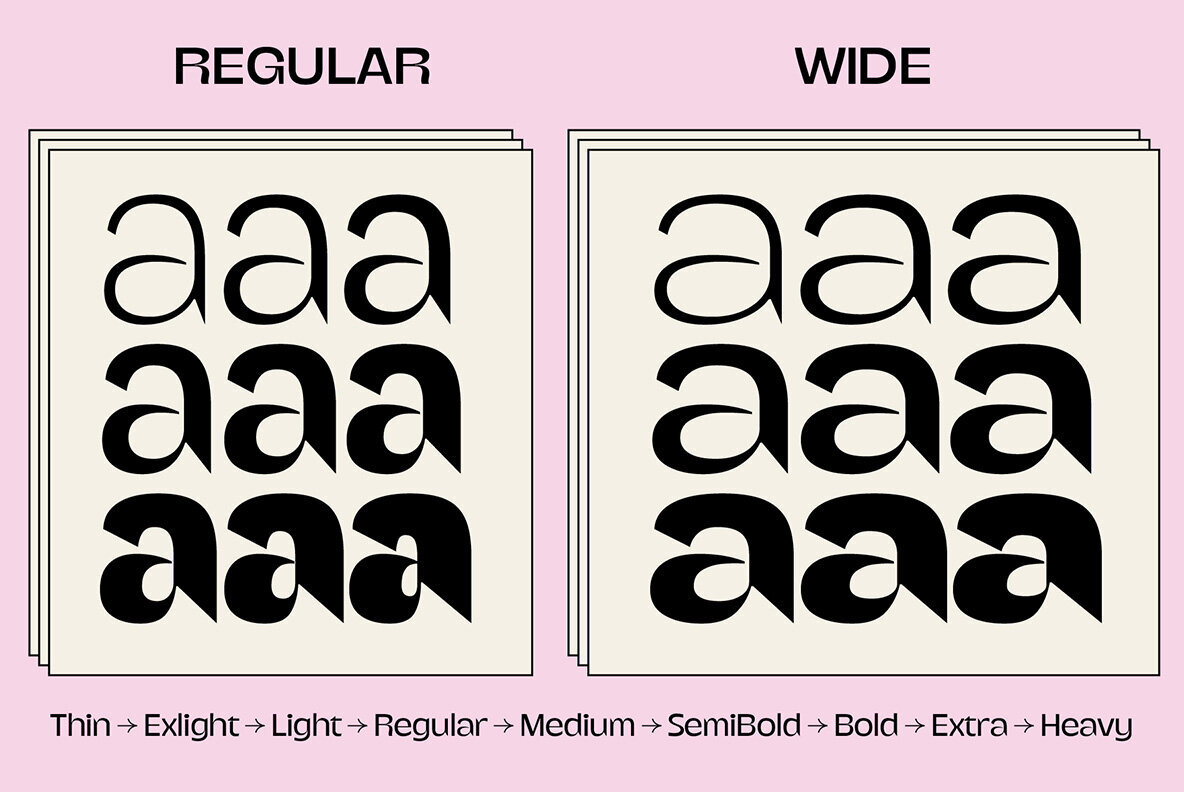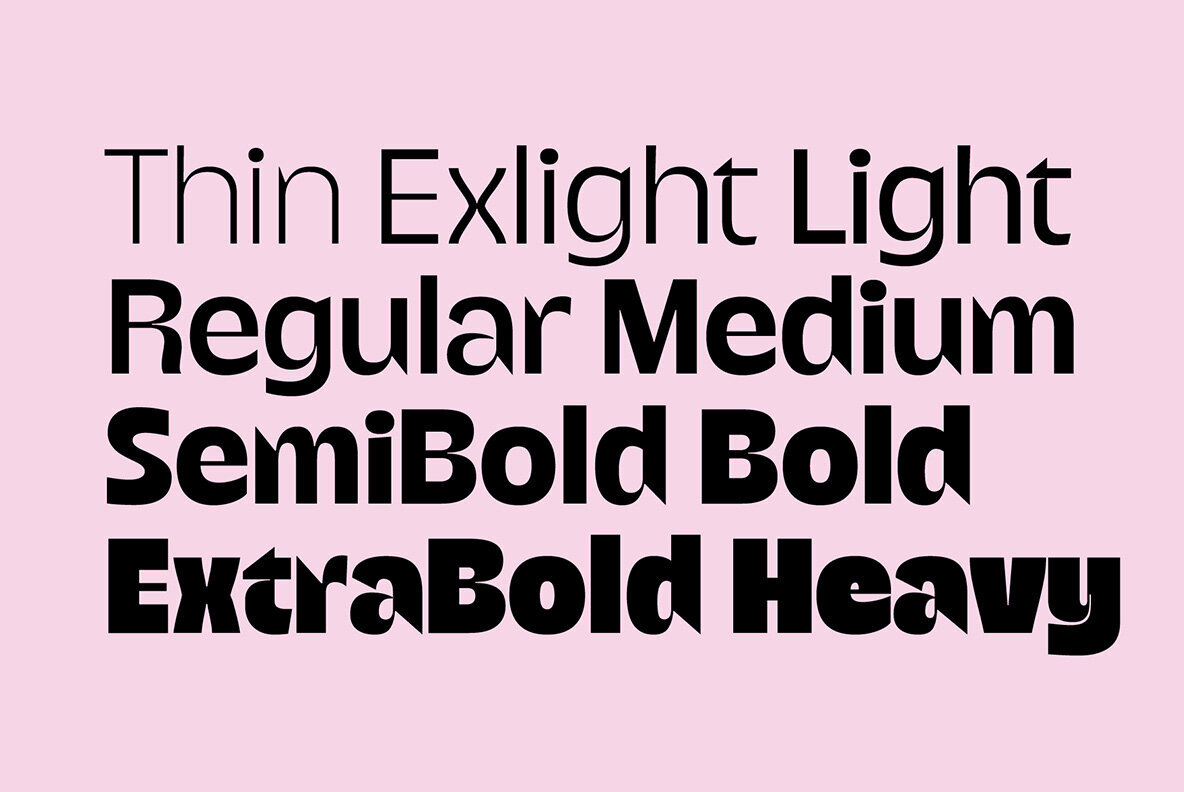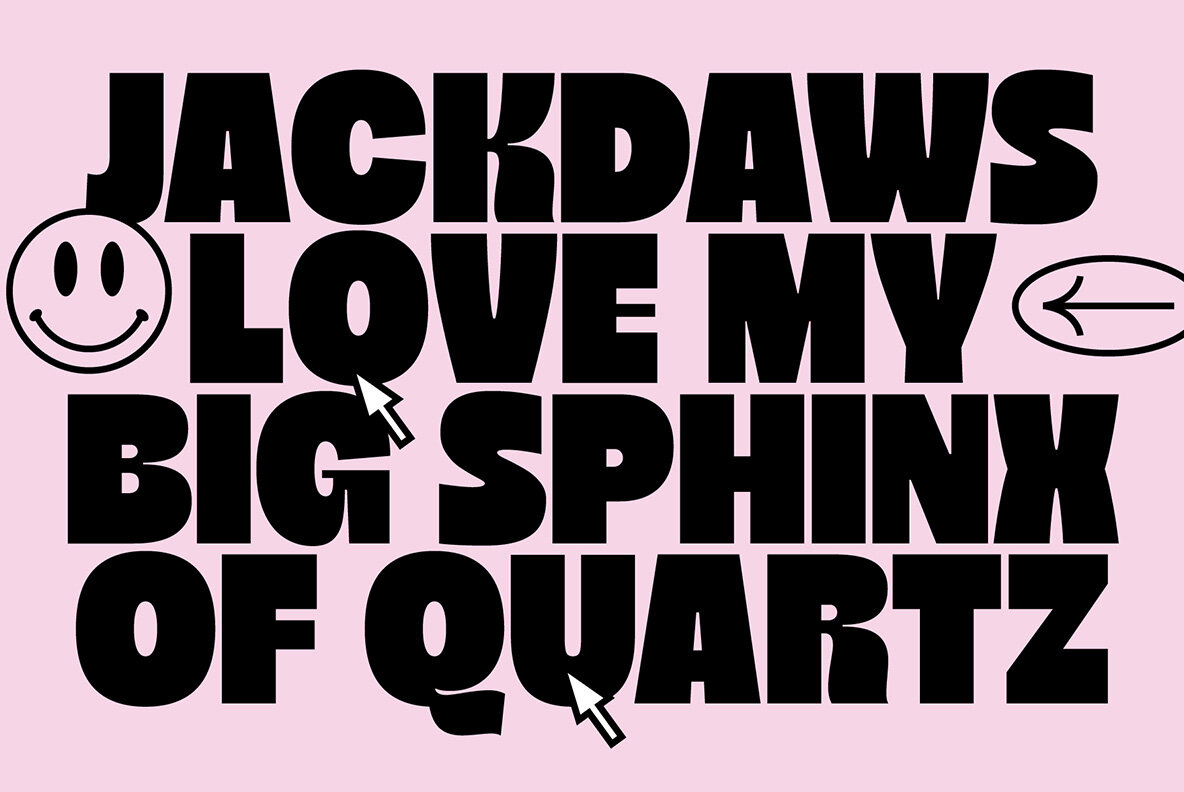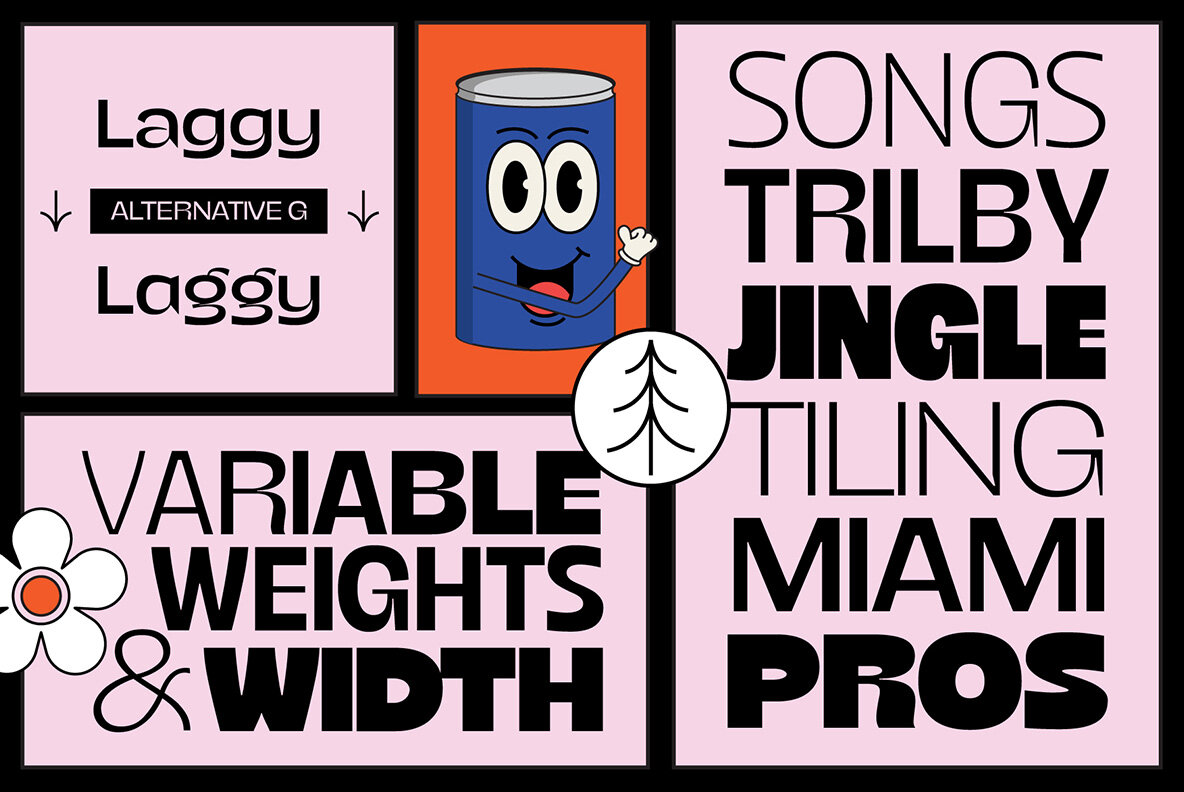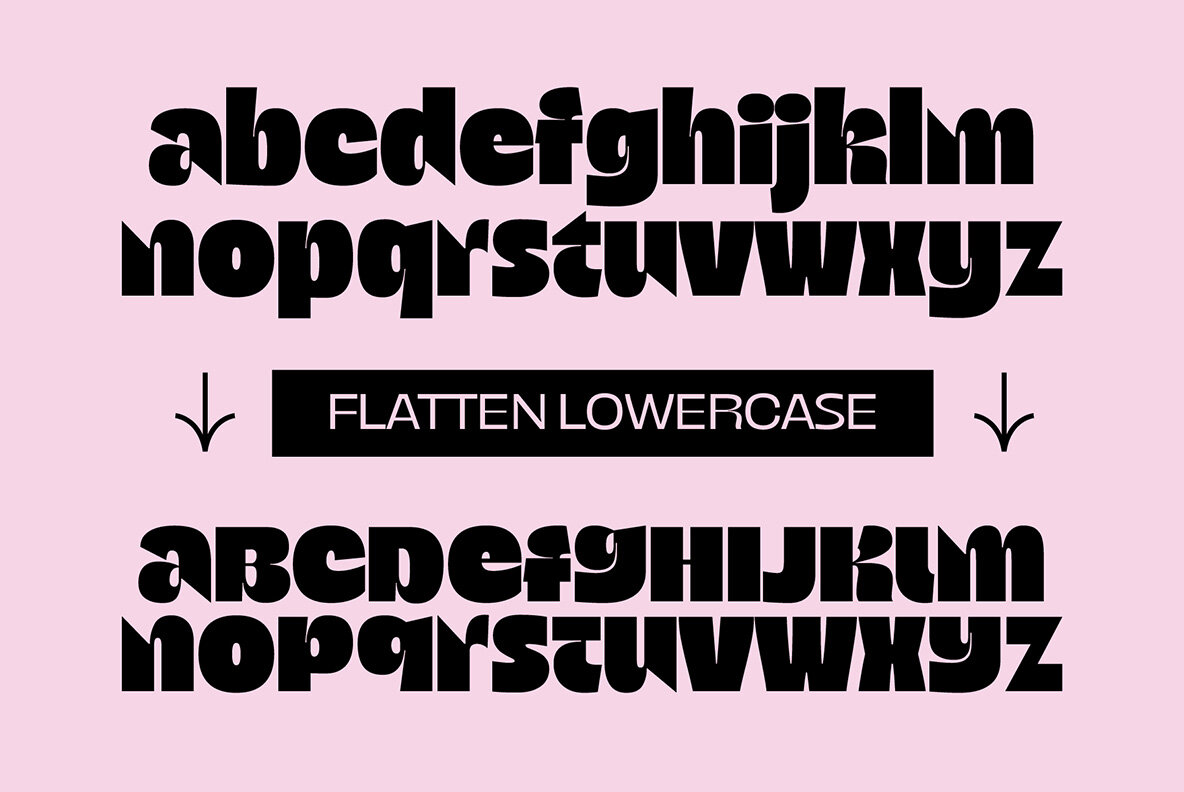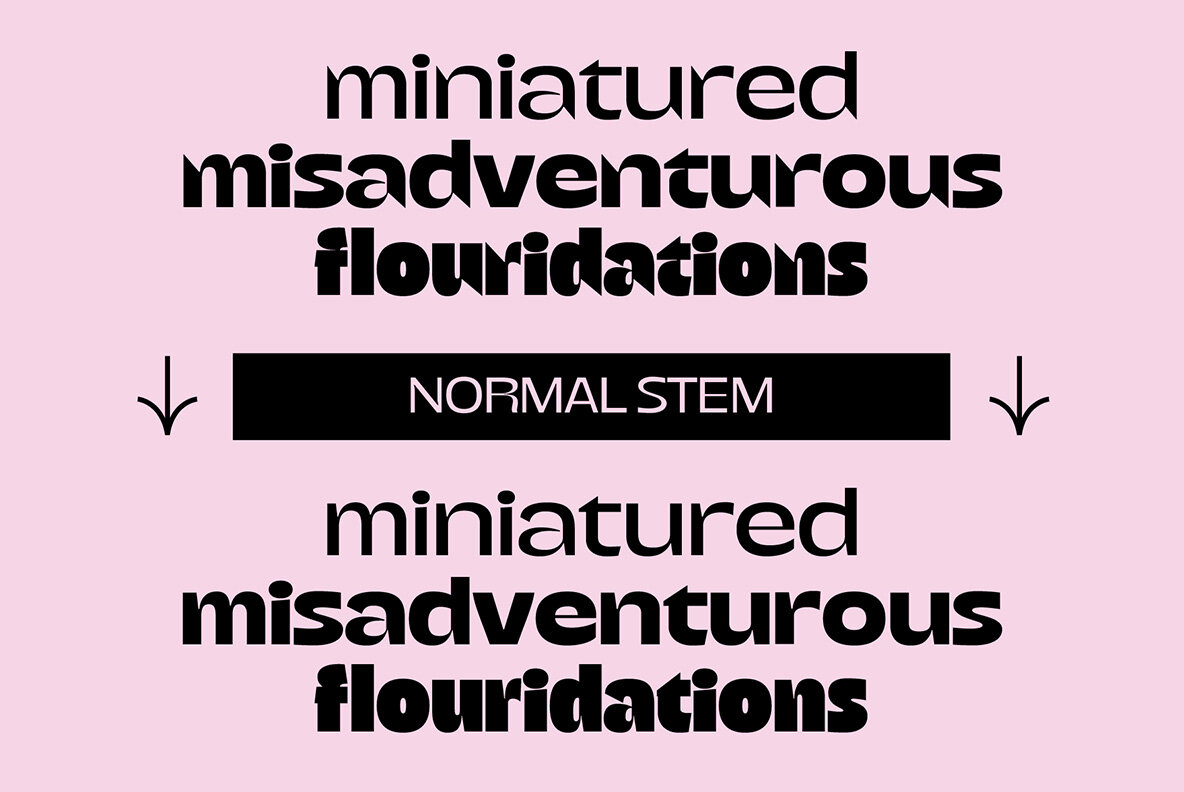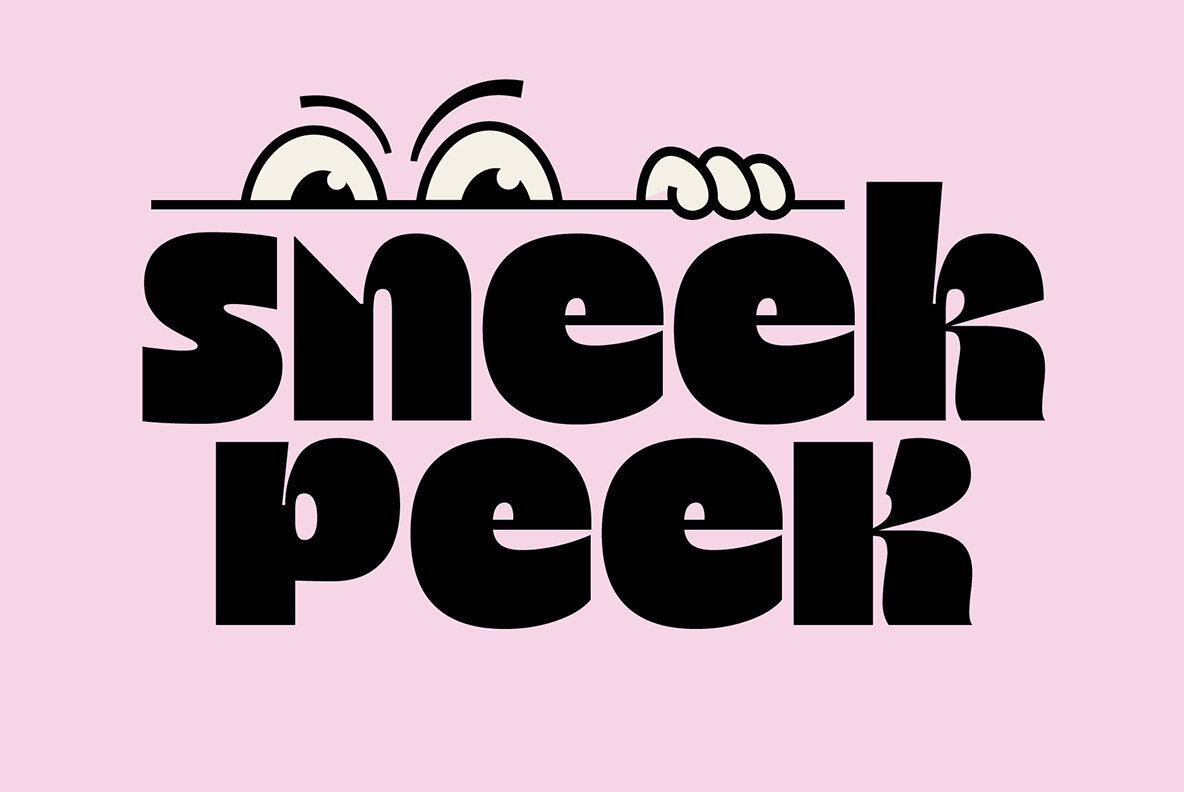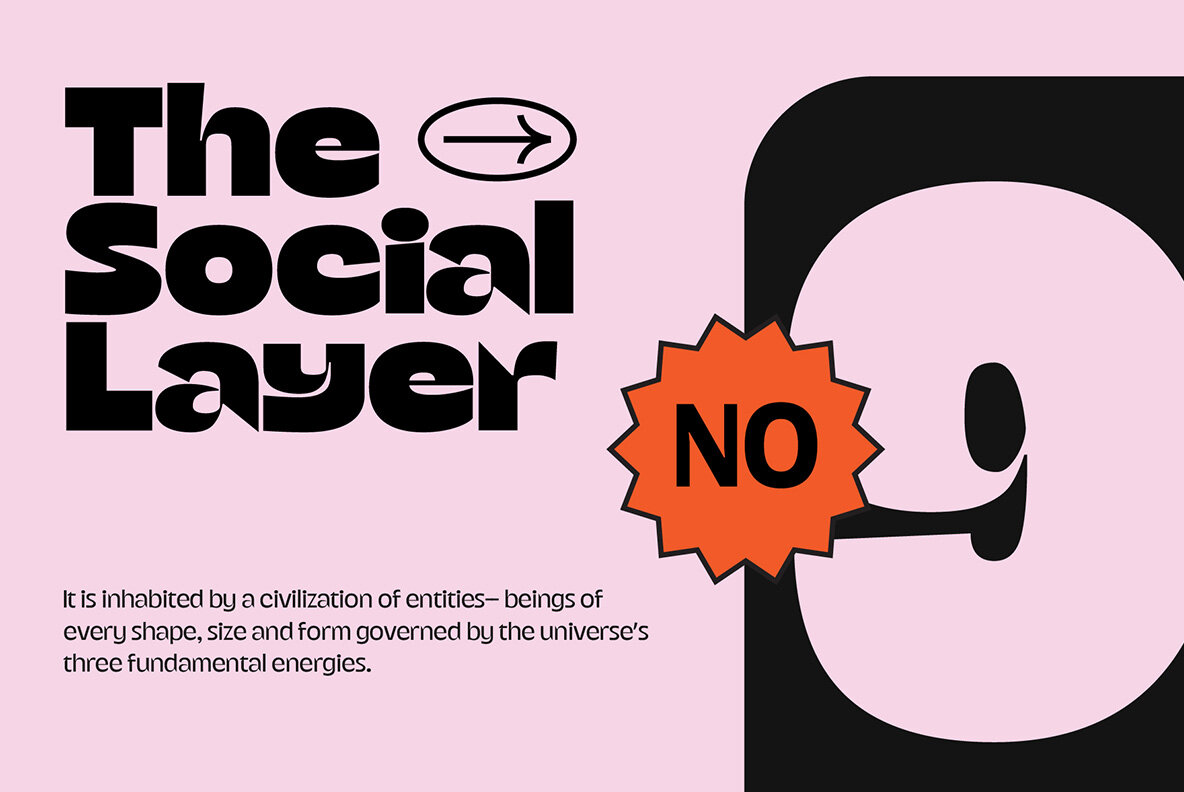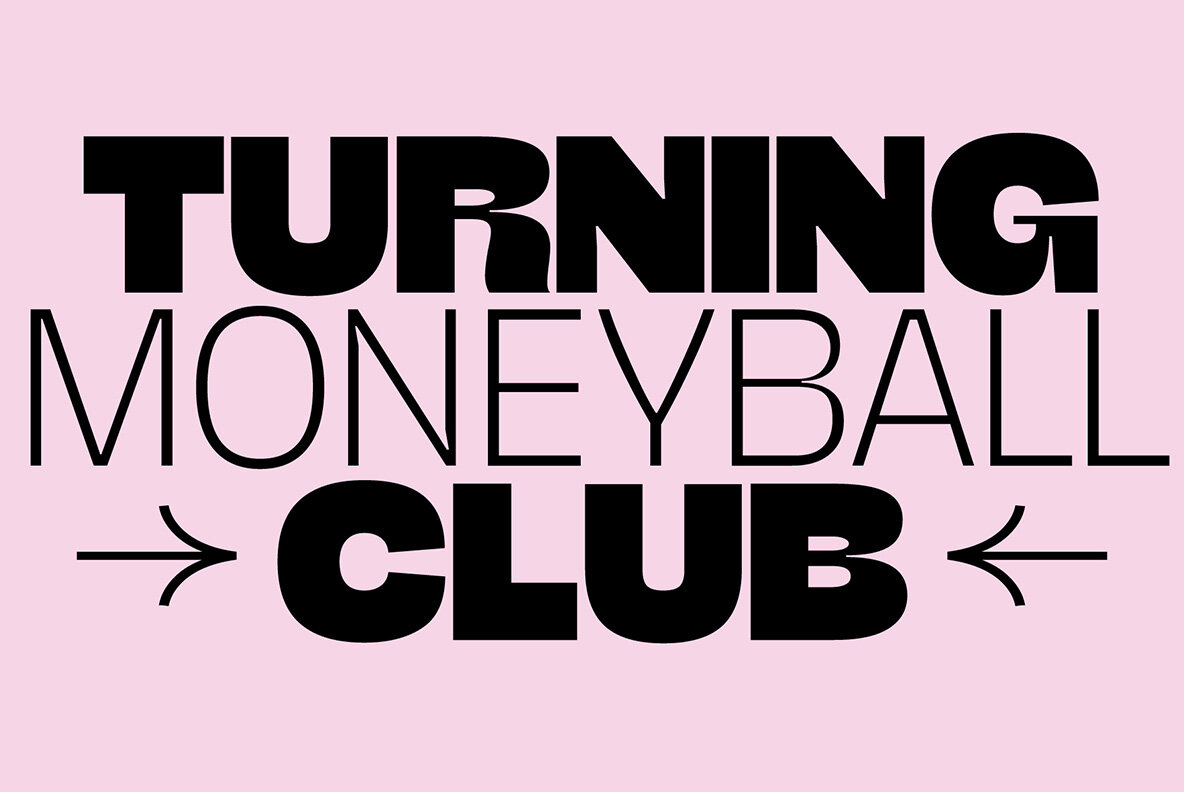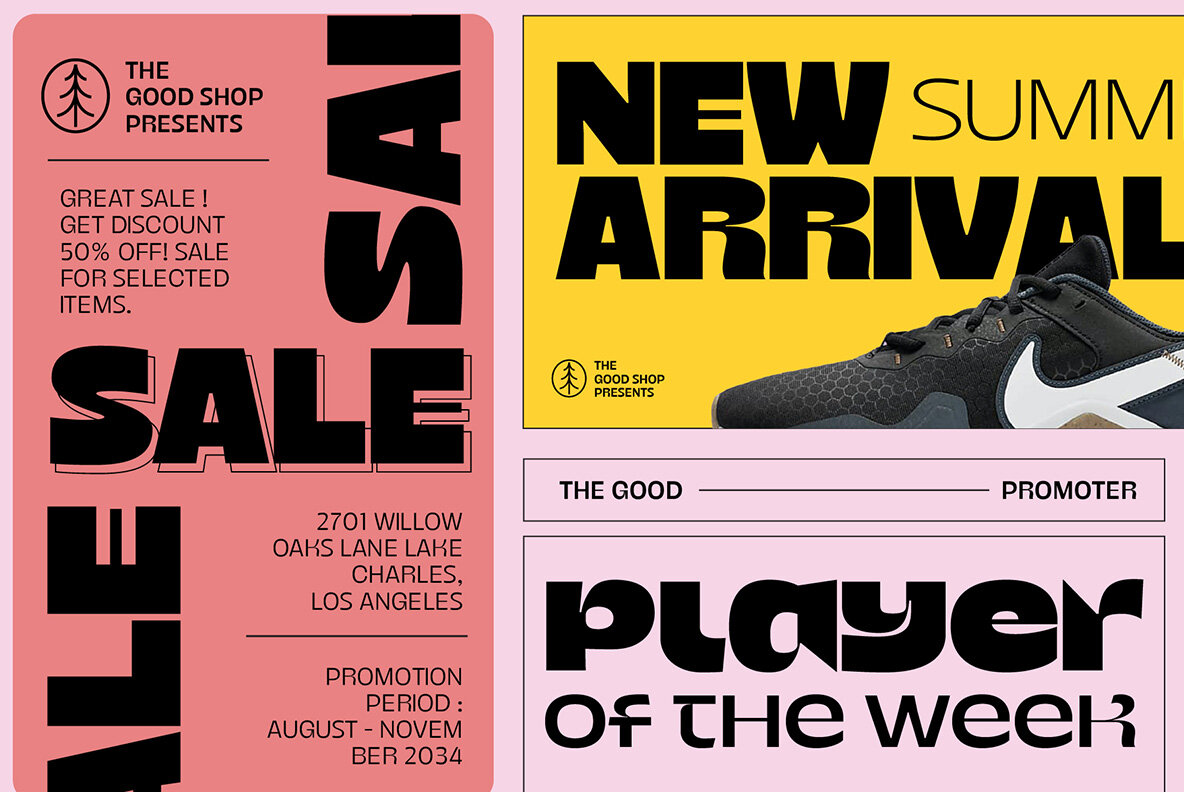
Gango Font
Introducing Gango, the ultimate Variable Font that combines sleek modernity with a playful pop style. This versatile typeface is designed to meet all your creative needs with its ten unique weights, ranging from the delicate Thin and Extra Light to the bold and heavy Extra Bold Heavy. Gango offers you complete control over your typography, allowing you to adjust the font's weight and width seamlessly, all in one font file. Gango style brings a clean and contemporary look to your projects, making it perfect for a wide range of design applications. Whether you're working on branding, posters, web design, or any other creative endeavor, Gango's pop-inspired flair will add a touch of modern sophistication and playfulness to your work. Key Features: Variable Font: Gango is a variable font, which means you can fine-tune the weight and width of the typeface to suit your exact design requirements. This flexibility opens up endless creative possibilities. Flatten Lowercase: Gango features flattened lowercase characters, giving your text a distinctive and eye-catching appearance. It's a subtle yet striking design choice that sets it apart from standard fonts. Normal Stem: The font maintains a consistent stem width across all weights, ensuring readability and aesthetic consistency across your design projects. Alternative Letter "g" and Ampersand: Gango offers alternative versions of the letter "g" and the ampersand, providing you with additional design options to create unique and customized typography. Wide Version: In addition to the standard width, Gango also includes a wide version, allowing you to experiment with different proportions and layouts in your designs. Gango is your go-to typeface for creating eye-catching, modern, and dynamic designs. With its variable capabilities and unique features, it's a font that will truly elevate your creative projects.